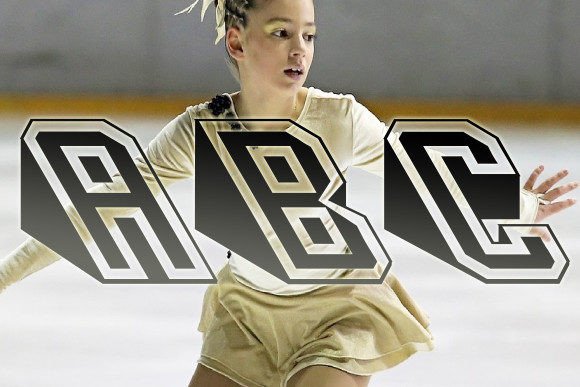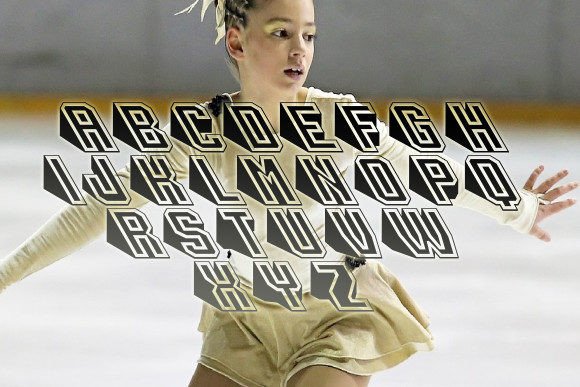
Introduction to Skate Font
Have you ever stared at a blank canvas, a fresh design project staring you in the face, and felt a surge of inspiration and creativity? For designers, moments like these are a blessing and a curse – a blessing because they bring out the best in us, and a curse because they can be fleeting and hard to capture. But what if you had a secret weapon, a design resource that could help you tap into that creative energy and bring your ideas to life?
Enter the Skate Font, a stunning 3D typeface that’s perfect for designers looking to add a touch of edginess and sophistication to their creative projects. With its sleek, modern design and transparent background, this font is a game-changer for anyone looking to elevate their design game.
Key Features of Skate Font
- High-quality, unique font design ideal for creative projects requiring a distinctive aesthetic.
- Transparency is supported, allowing for seamless integration with transparent backgrounds.
- Skate Font is available in a single weight, making it easy to use in various design contexts without worrying about font pairing.
Honest Review: Skate Font
As a designer, I’m always on the lookout for high-quality design resources to elevate my creative projects. Skate Font is one such resource that I’ve had the chance to work with, and I’m excited to share my honest review.
- ✨ The font is incredibly versatile, with a wide range of styles and weights to choose from, making it perfect for various design applications.
- ✨ The transparent background option is a game-changer, allowing me to easily composite the font with other design elements.
- ✨ The font is incredibly easy to use, with a clean and intuitive design that makes it a joy to work with.
- ⚠️ Some of the styles may not be as consistent across different platforms and devices.
Overall, I’m really impressed with Skate Font. It’s a fantastic resource for designers who want to add some edge and creativity to their projects. While it may have some limitations, the benefits far outweigh the drawbacks.
Tips for Getting the Most Out of Skate Font
Skate Font is perfect for designing graphics for skateboarding, surfing, or other action sports. It’s also great for creating logos, posters, and flyers for events or businesses related to these sports. With its high-quality design and transparent background, Skate Font is a valuable design resource for any creative project.